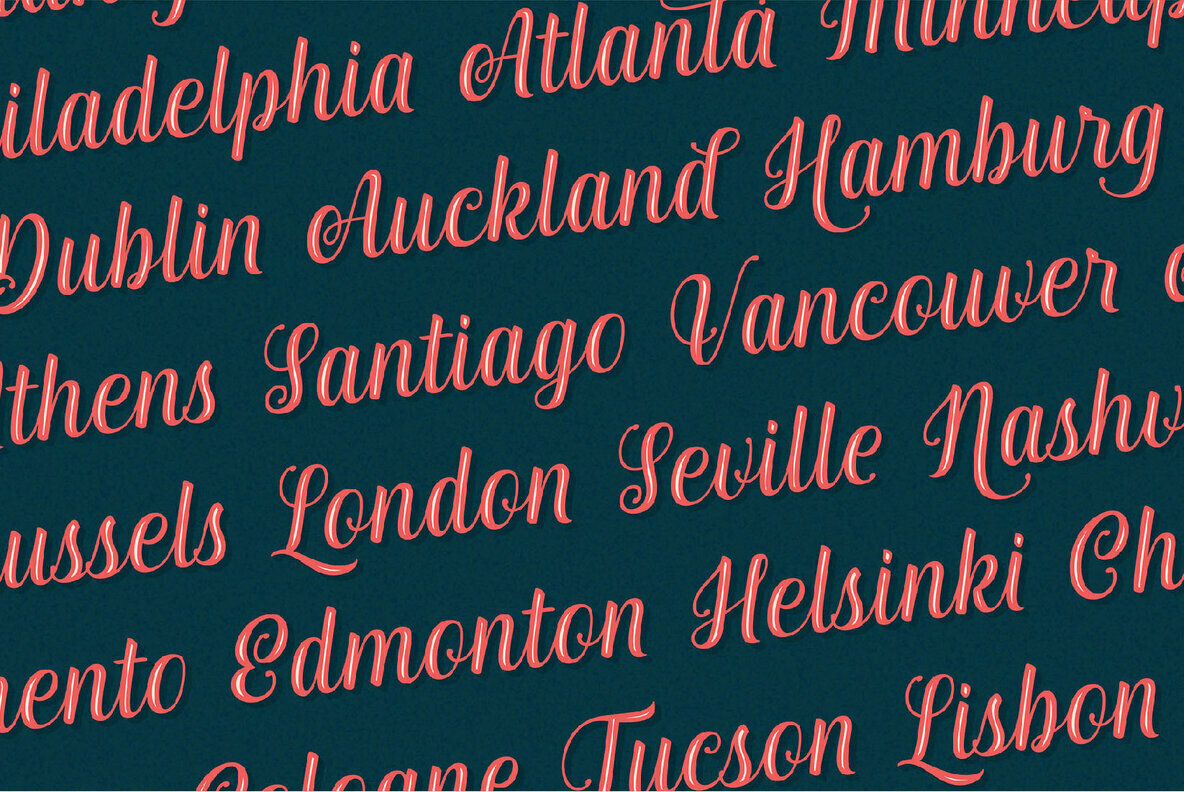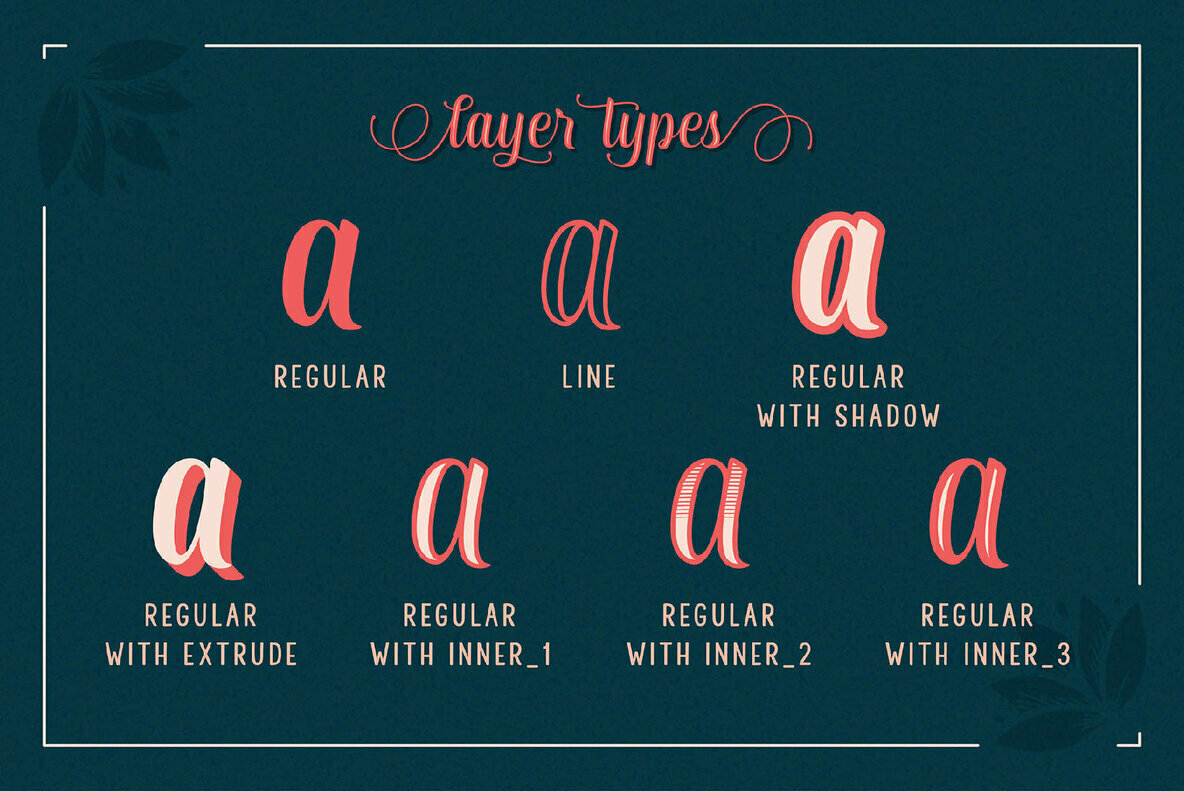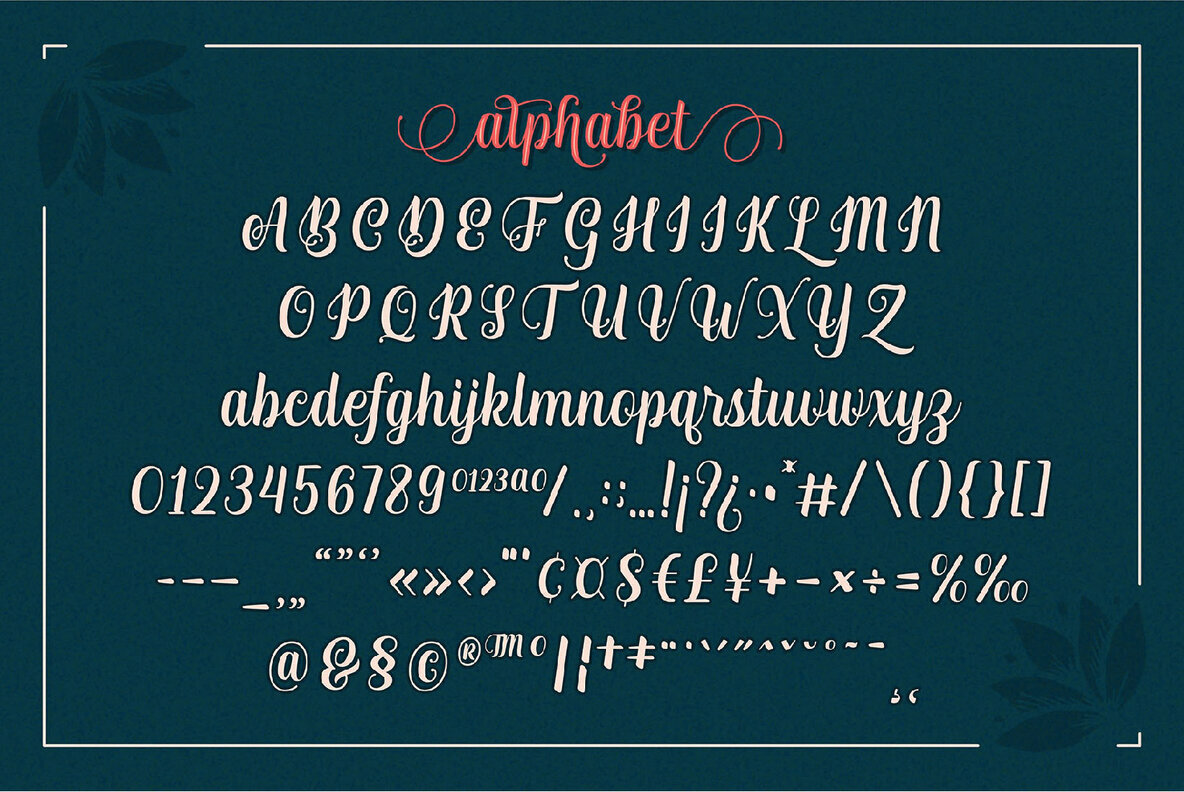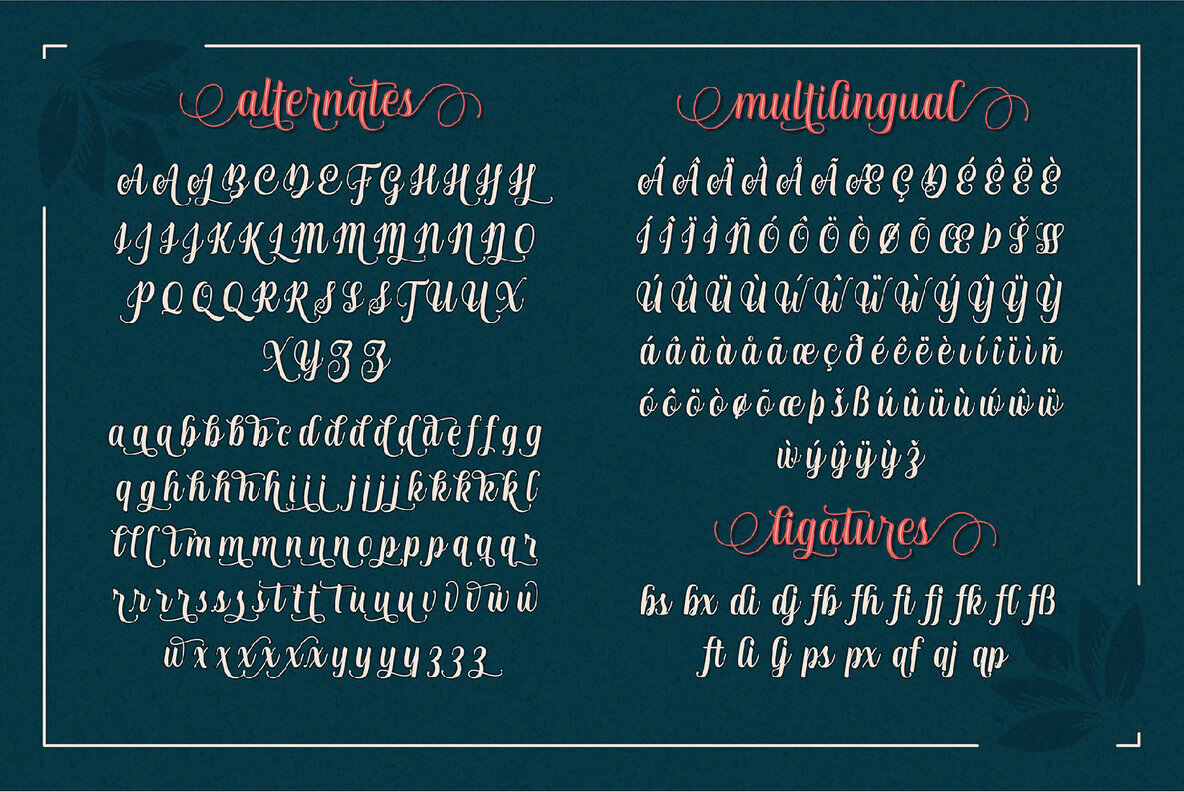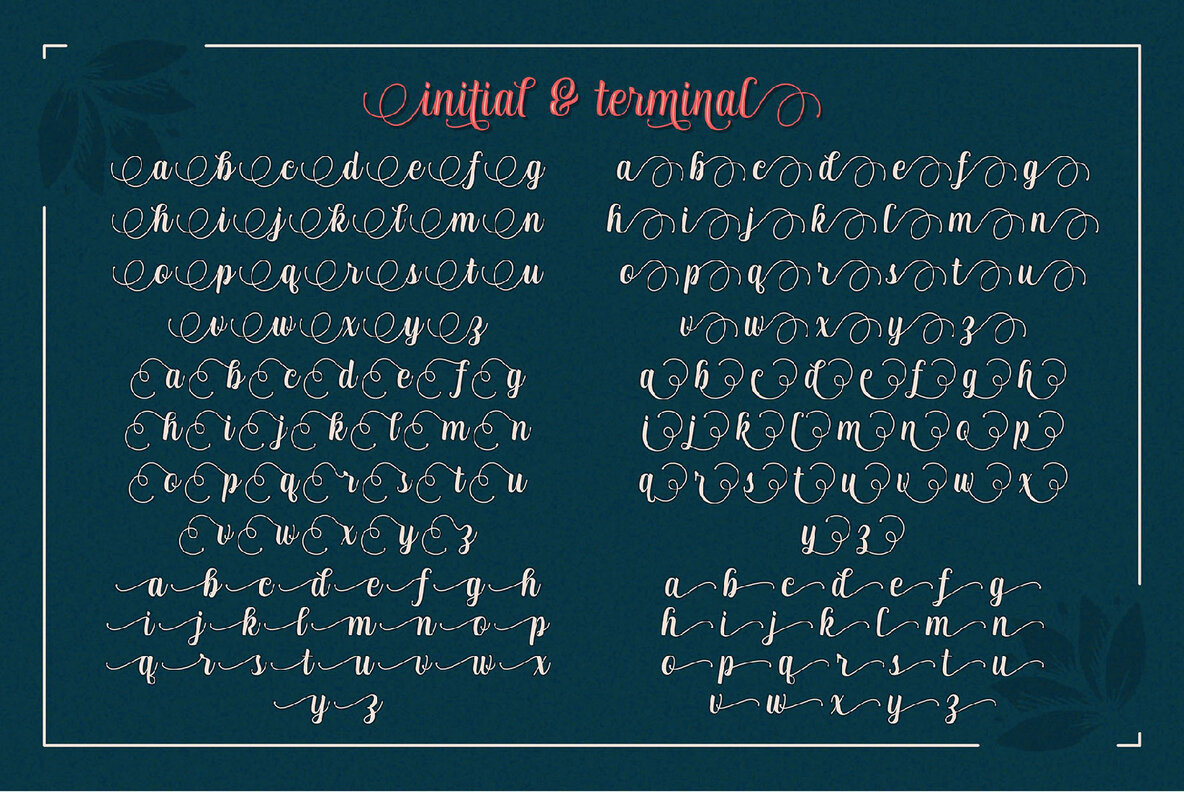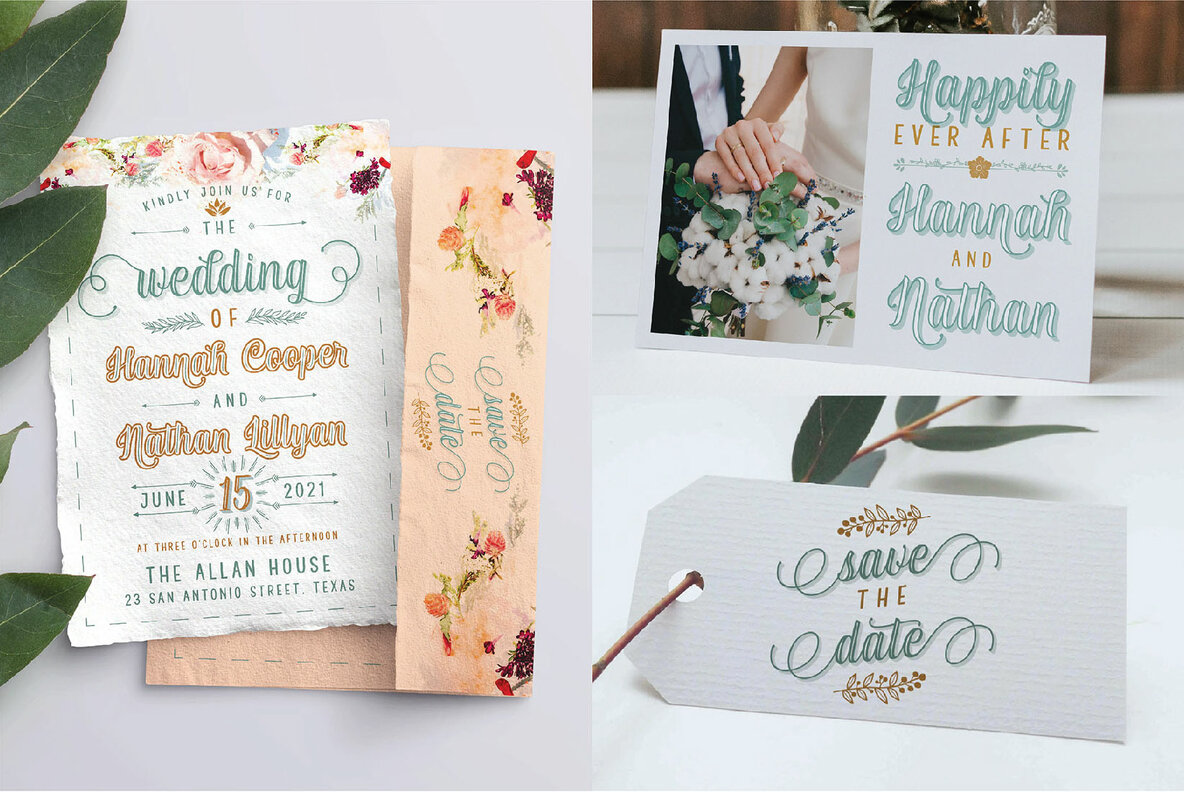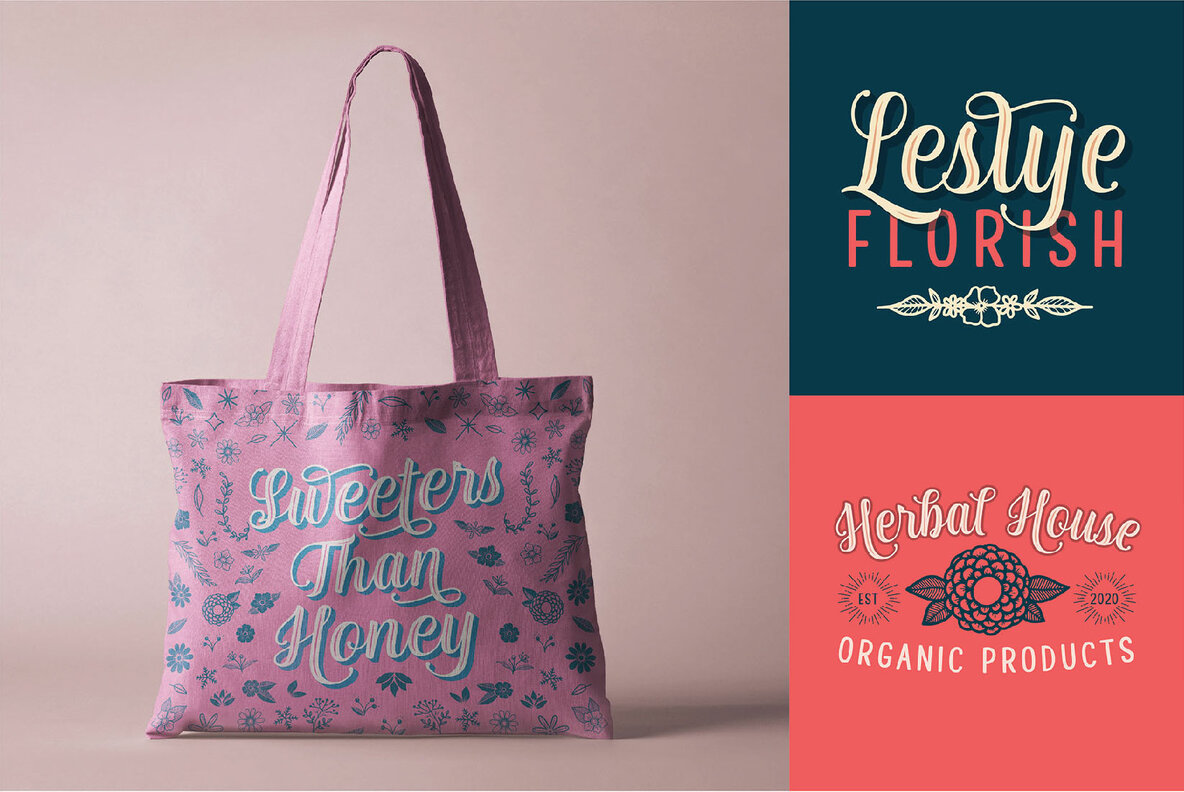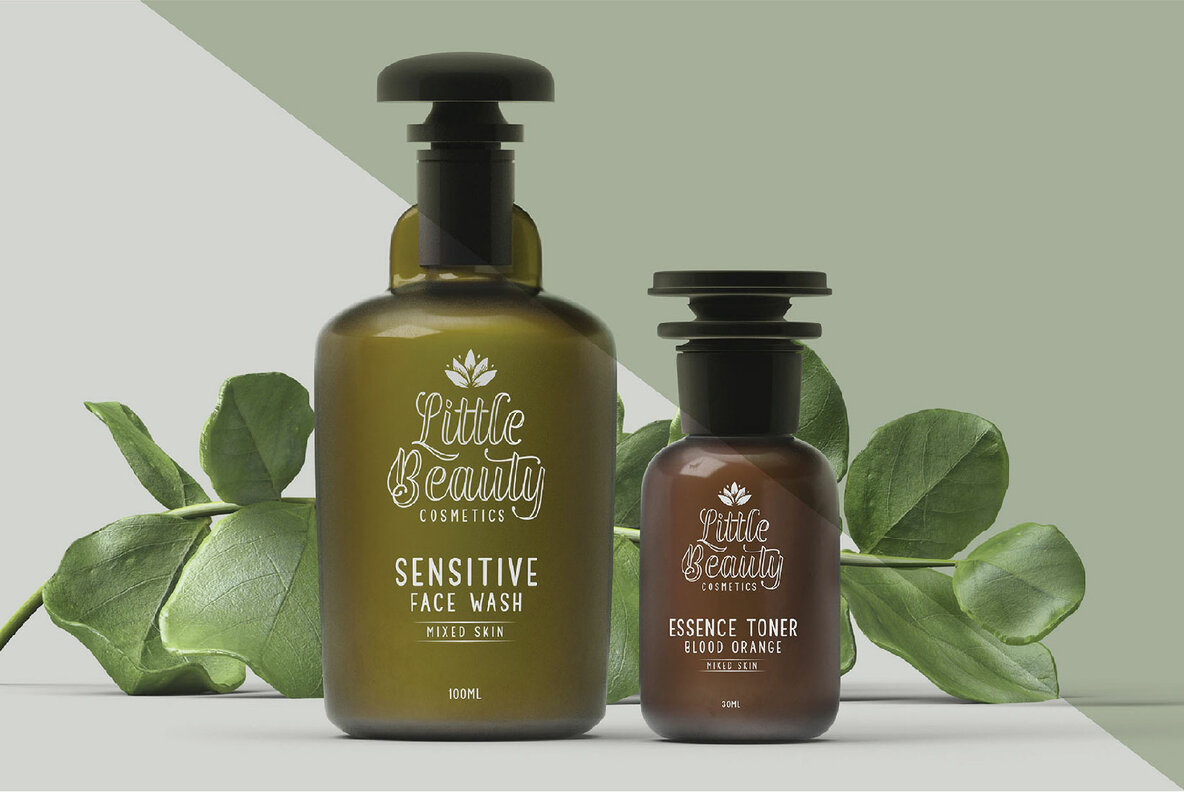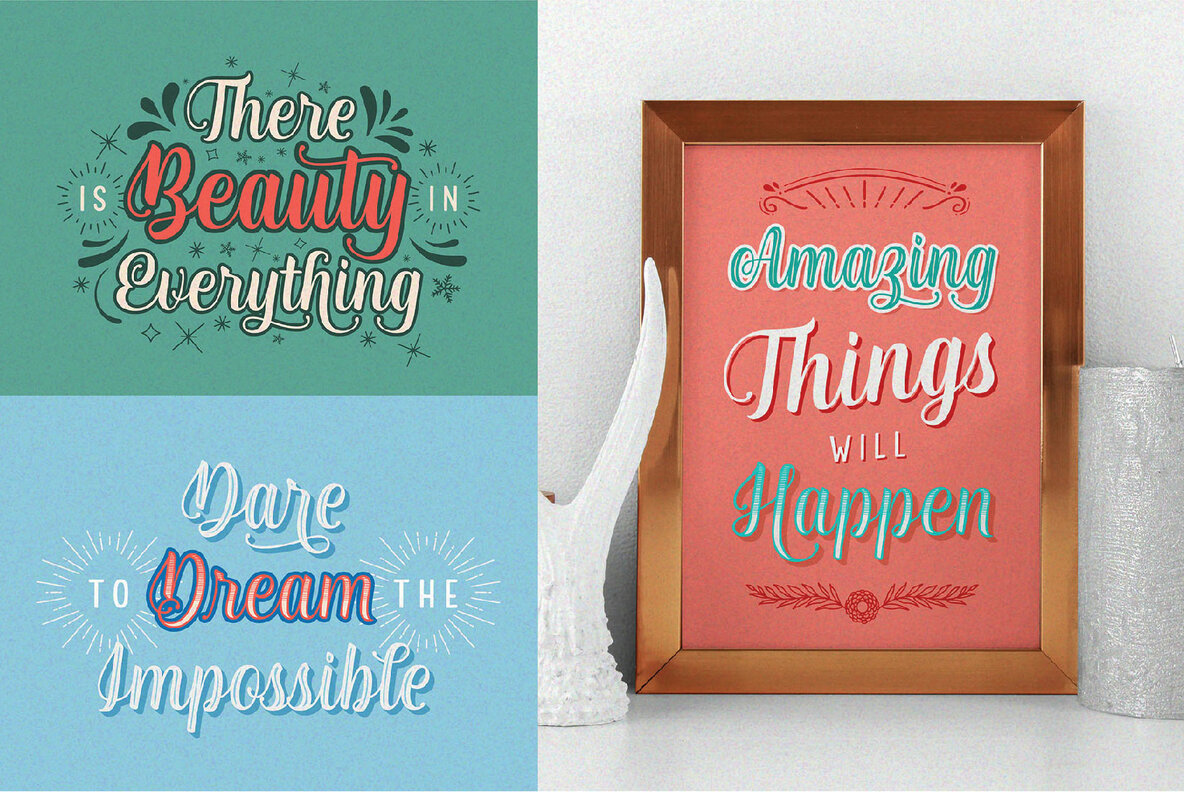
Nadella Font
Abbasy Studio's Nadella offers a harmonious blend of script and sans fonts, presenting a versatile toolbox for modern designers. The script font boasts seven distinct variations, while the accompanying sans font adds a touch of refinement. This combination is ideal for adding intricate detail to your creative endeavors, allowing dynamic experimentation with style. The script font presents layers including line, shadow, extrude, and several inline options, facilitating diverse aesthetic expressions. Adjusting colors across layers is intuitive, enabling detailed customization to enhance your designs. With the inclusion of a sans font and extra embellishments, crafting effects and ornaments becomes effortless. Features: Suitable for young and passionate designers, Nadella is a valuable addition to any design toolkit.Nadella: Dynamic Script and Sans Duo